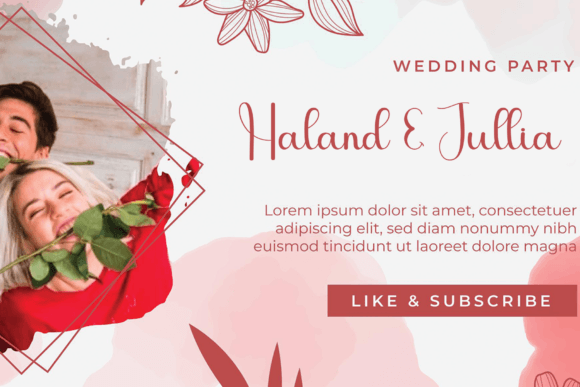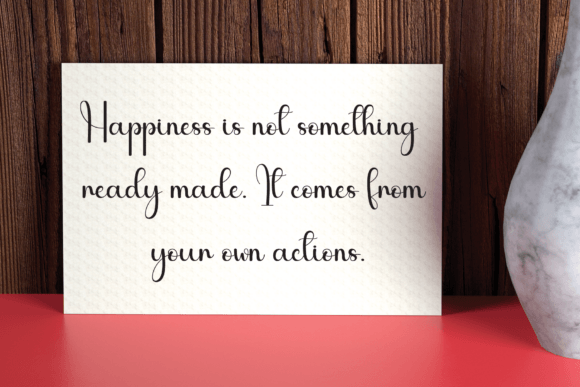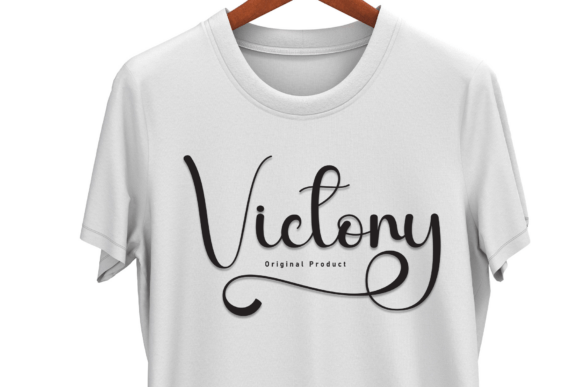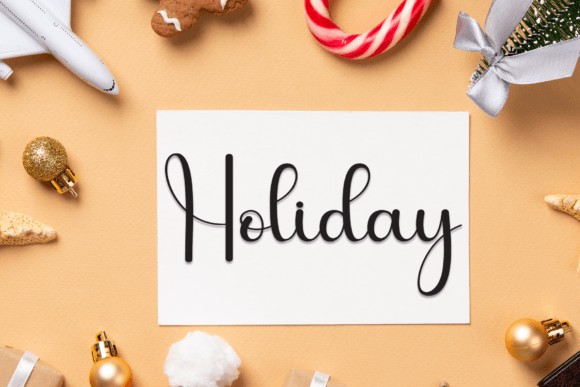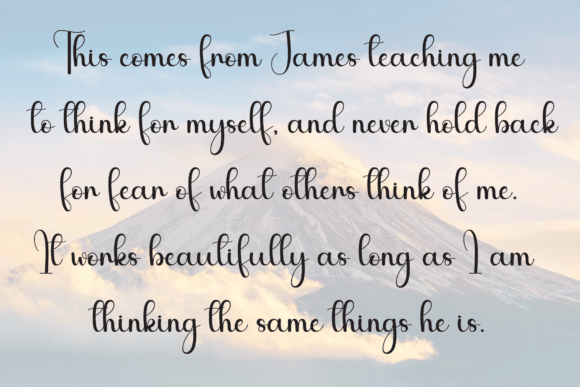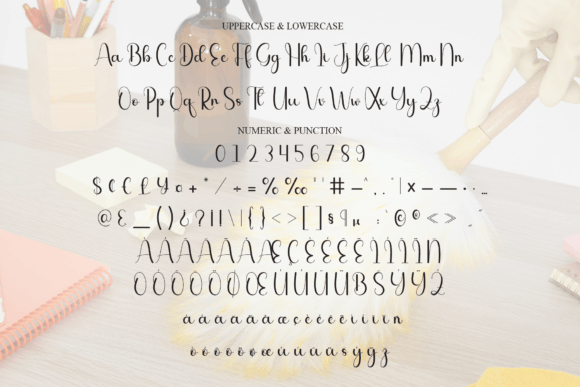
Dusting Font: Elevate Your Designs with Elegance and Charm
In the world of typography, fonts play a crucial role in conveying the tone and personality of a design. For those seeking a stylish and sophisticated touch, the Dusting font is an excellent choice. This beautiful handwritten script font is designed to add a personal and refined touch to various design projects, making it perfect for branding, invitations, and stationery.
The Characteristics of Dusting Font
Dusting font is distinguished by its fluid, graceful strokes that exude elegance and charm. The smooth curves and natural flow of this font create a timeless, refined look that can elevate any design. Whether you’re working on a luxury brand’s logo, a wedding invitation, or a stationery set, Dusting font is sure to impress.
Perfect for Branding
Branding is all about creating a unique identity that resonates with your target audience. The right font can make a significant difference in how your brand is perceived. Dusting font, with its elegant and sophisticated feel, is ideal for brands that want to convey a sense of luxury, refinement, and exclusivity. From high-end fashion labels to upscale restaurants, this font can help you create a lasting impression.
Elevate Your Invitations and Stationery
Invitations and stationery are an excellent way to make a personal connection with your guests or clients. With Dusting font, you can add a touch of elegance and sophistication to your designs. Whether it’s a wedding invitation, a birthday party invite, or a business letterhead, this font is sure to make your design stand out.
Why Choose Dusting Font?
So, what makes Dusting font a great choice for designers and crafters? Here are a few reasons:
- Elegant and sophisticated: Dusting font has a refined, high-end feel that’s perfect for luxury brands and designs.
- Versatile: This font can be used for a wide range of design projects, from branding and invitations to stationery and packaging.
- Easy to read: Despite its elegant feel, Dusting font is easy to read, making it perfect for body text and headlines.
- Unique: With its fluid, handwritten strokes, Dusting font is sure to make your design stand out from the crowd.
Tips for Using Dusting Font
To get the most out of Dusting font, here are a few tips to keep in mind:
- Use it sparingly: While Dusting font is beautiful, it’s best to use it sparingly to avoid overwhelming your design. Use it for headlines, titles, or key phrases to add emphasis and elegance.
- Pair it with a sans-serif font: For body text, consider pairing Dusting font with a clean, sans-serif font to create contrast and visual interest.
- Experiment with colors: Dusting font looks great in a range of colors, from rich jewel tones to soft pastels. Experiment with different colors to find the perfect fit for your design.
Dusting font is a beautiful, stylish handwritten script font that’s perfect for designers and crafters seeking to add a touch of elegance and charm to their designs. With its fluid, graceful strokes and smooth curves, this font is sure to elevate your branding, invitations, and stationery. Whether you’re working on a luxury brand or a personal project, Dusting font is an excellent choice.
Get Creative with Dusting Font